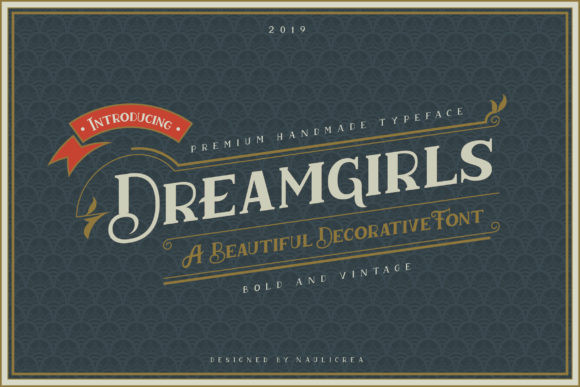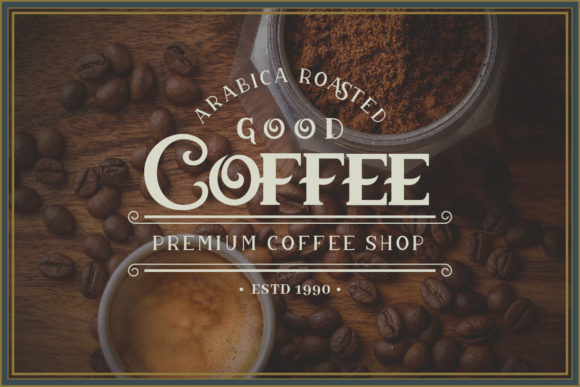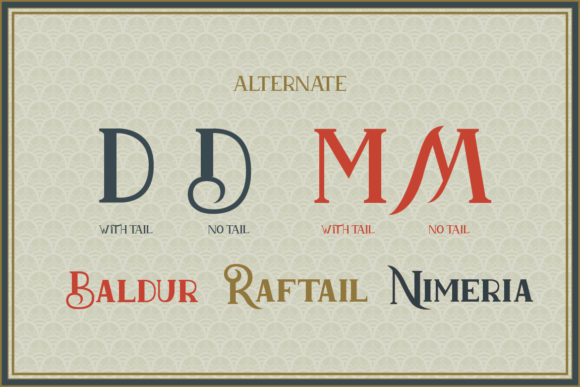
Dreamgirls Font
Dreamgirls FontDreamgirls is a unique and interesting serif font. Fall in love with its incredibly versatile style and use it to create beautiful stationary art, eye-catching social media posts, and much more!